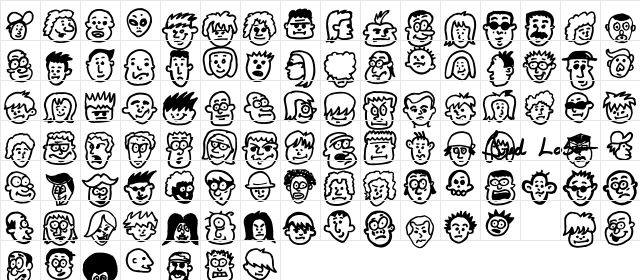
People freak Regular Font Preview
People freak Regular
Design Context for People freak Typeface
People freak is a composed and adaptable typeface that performs quietly and consistently across a wide range of design contexts.